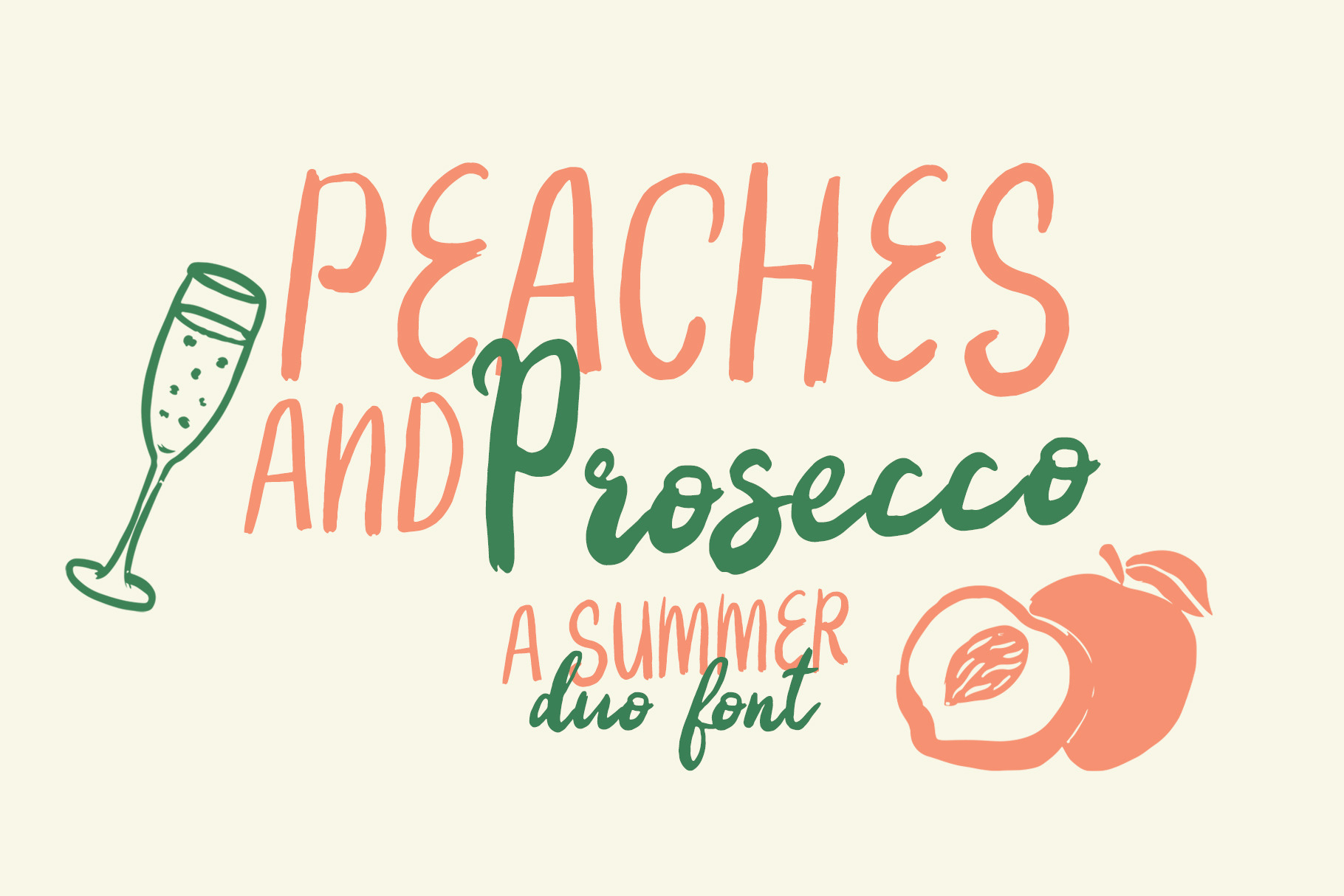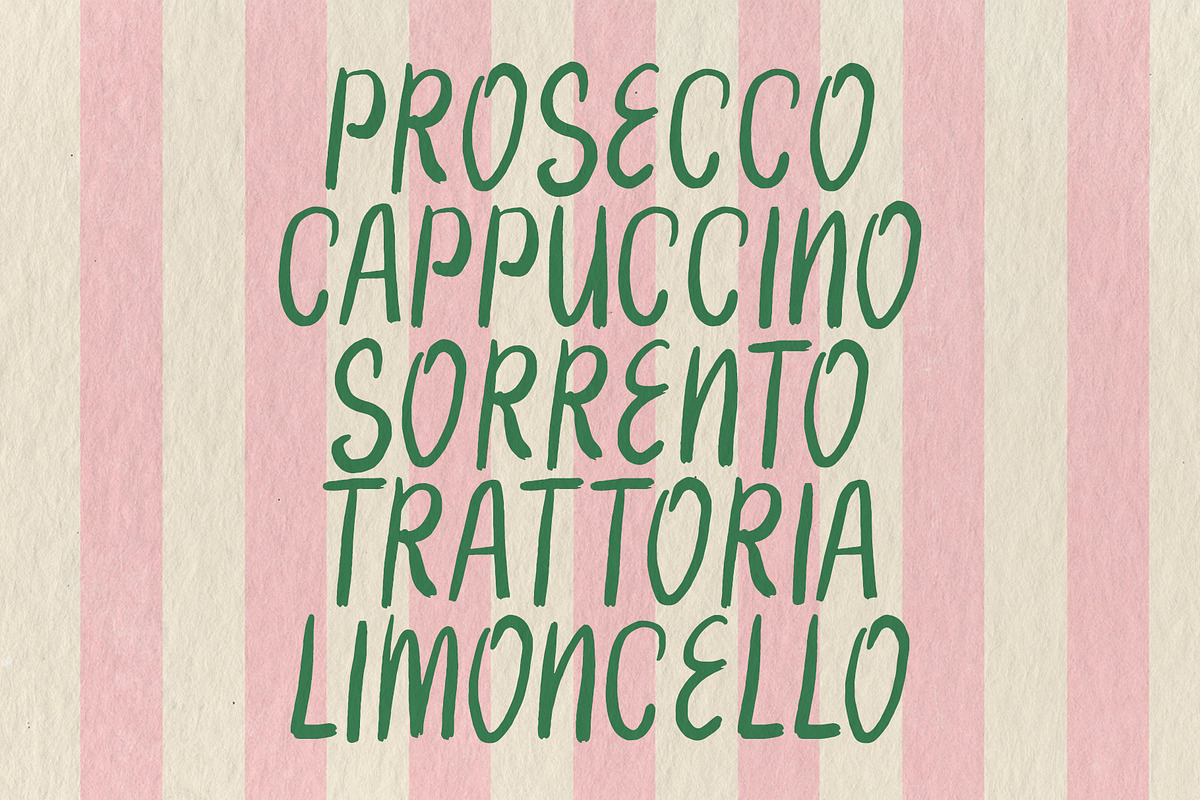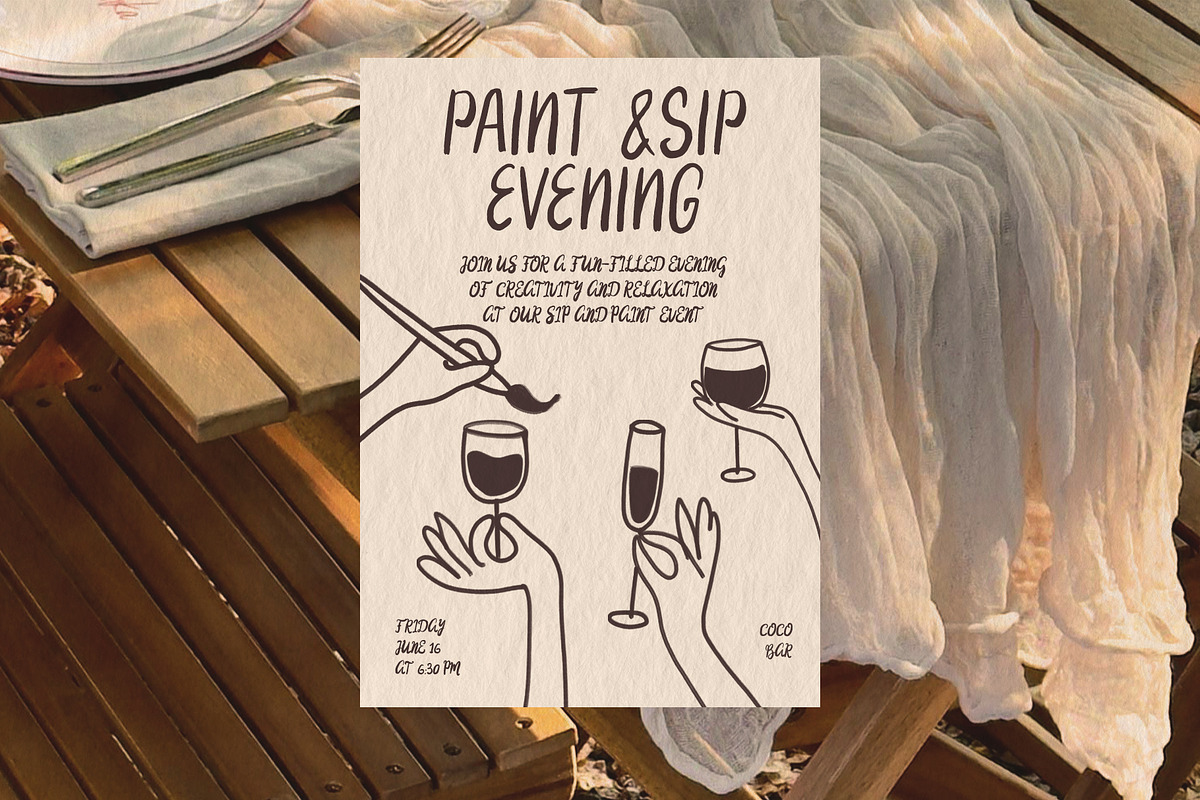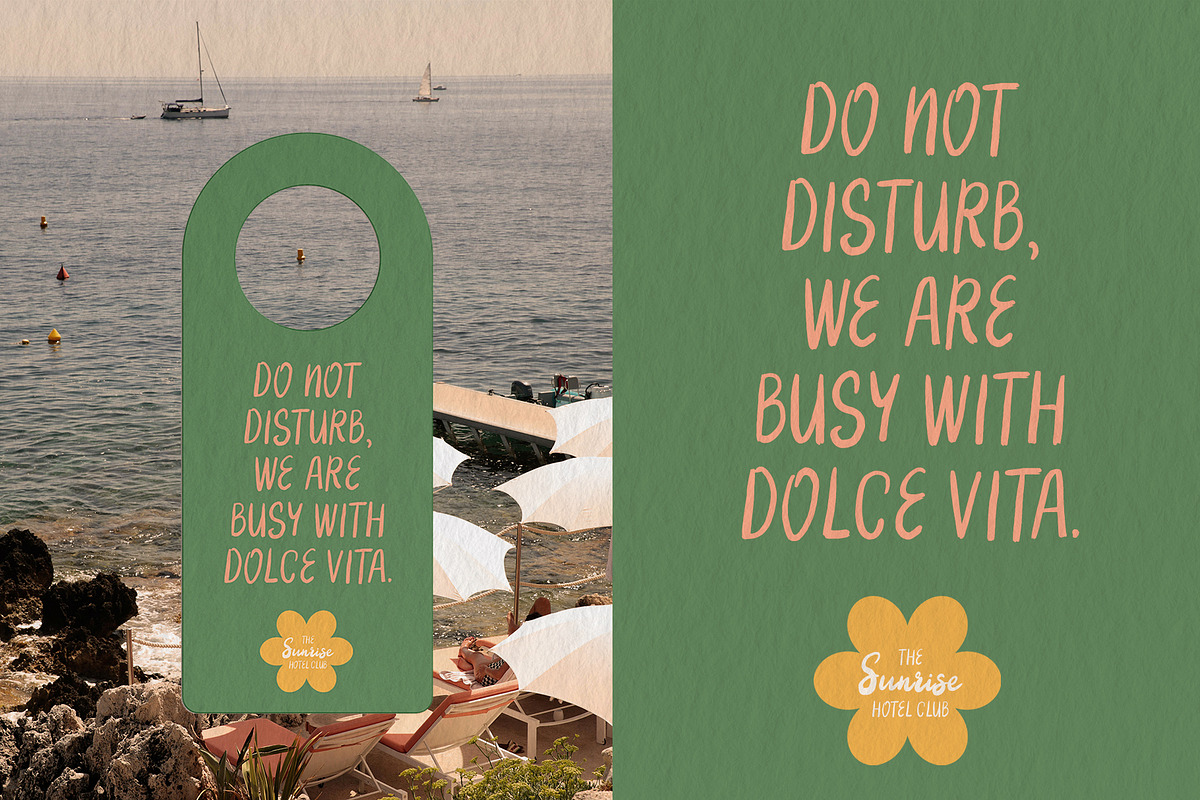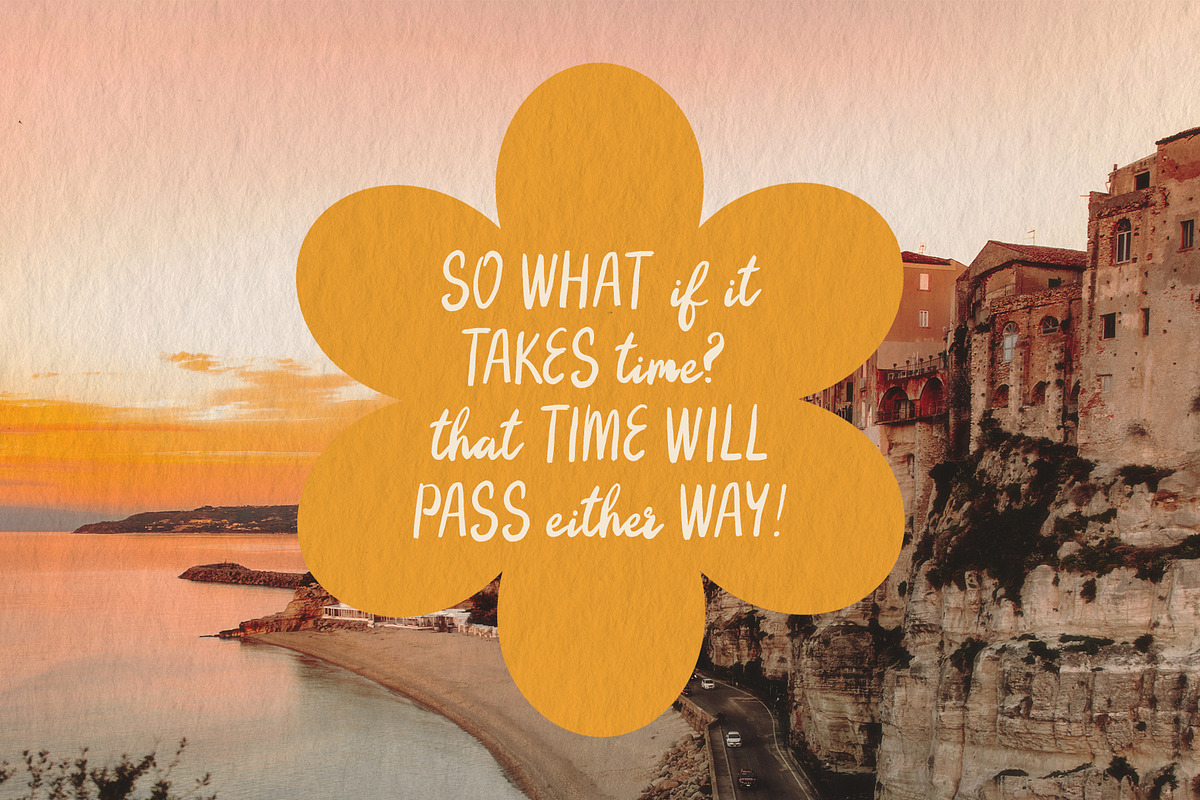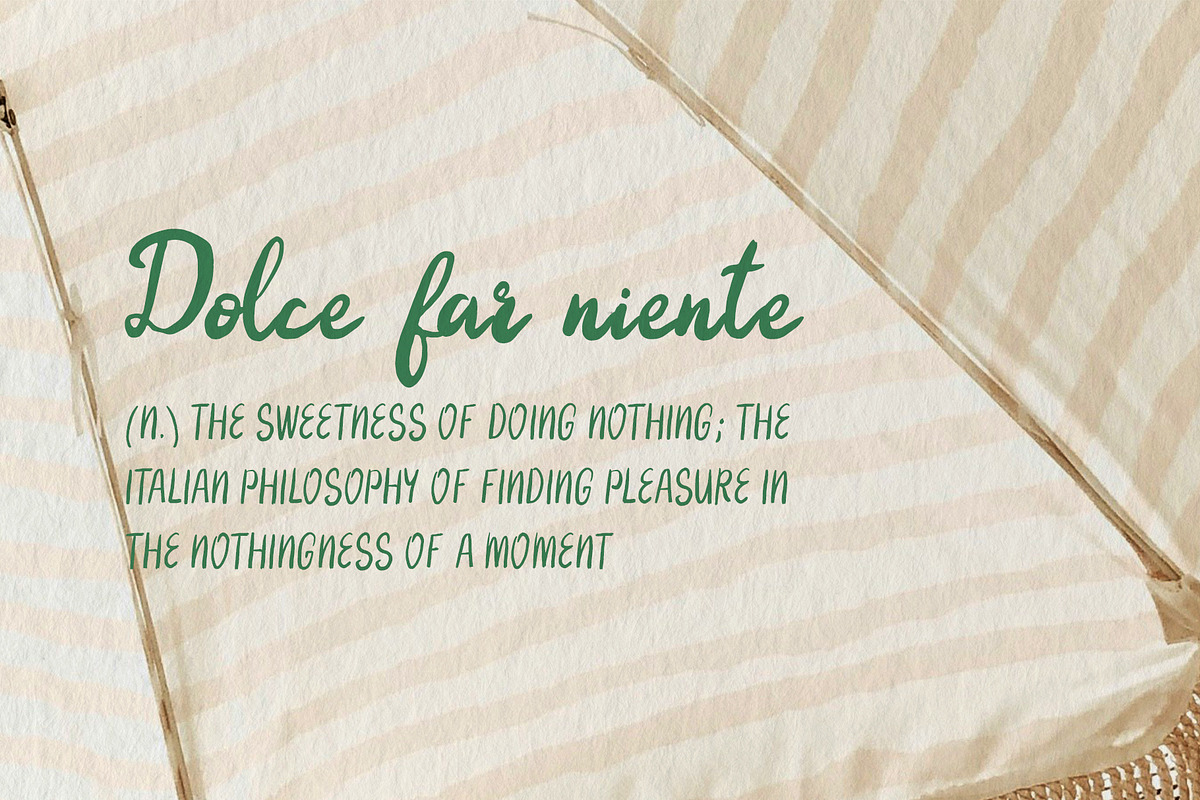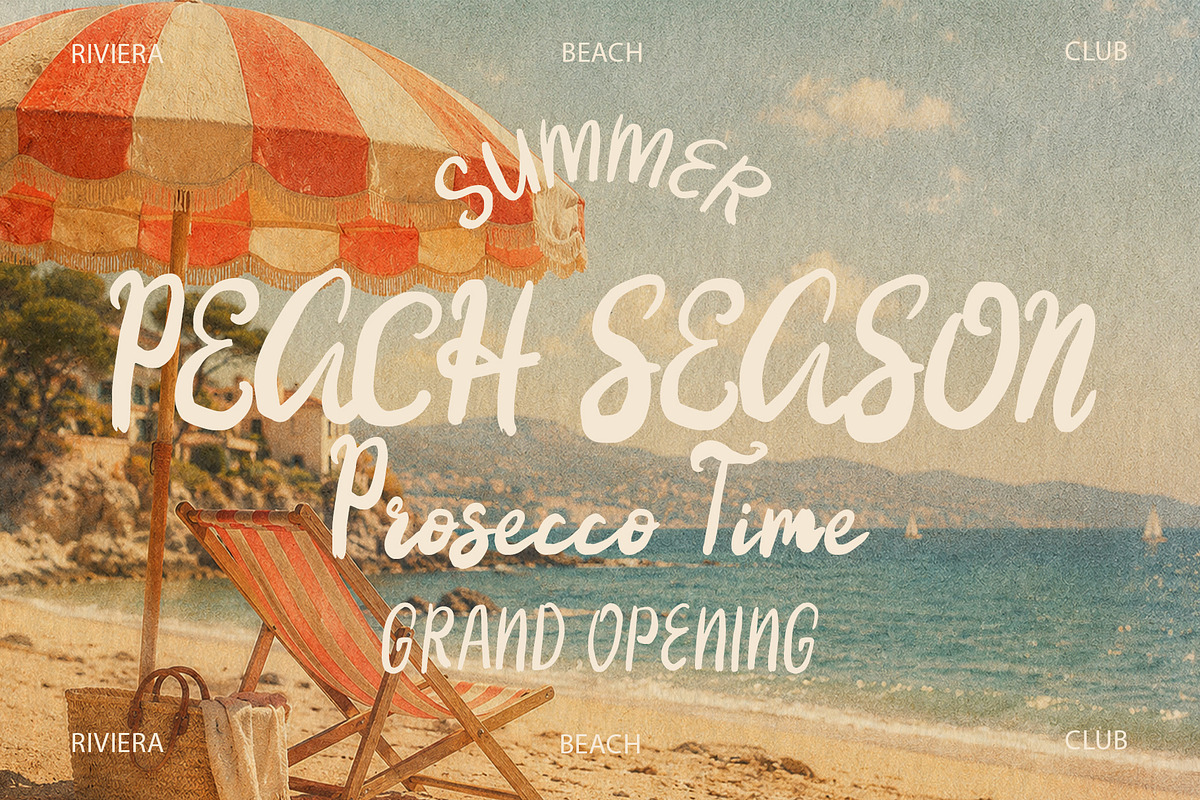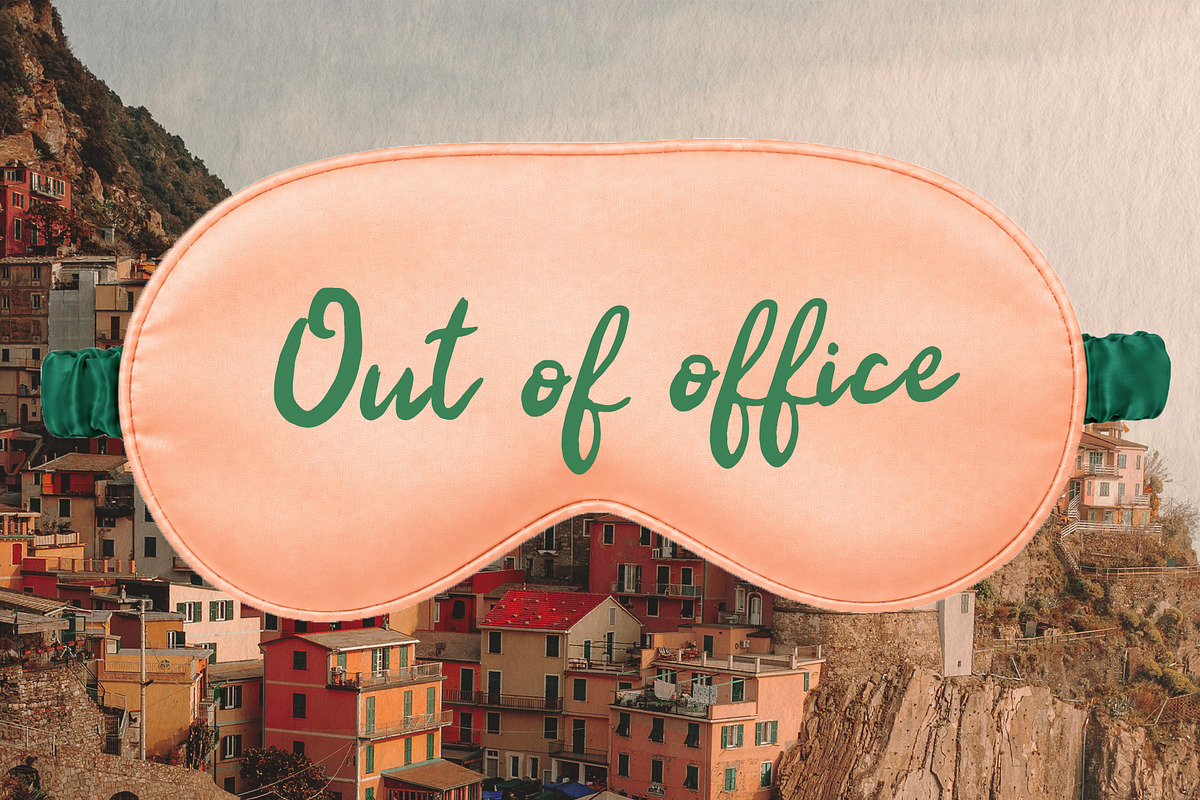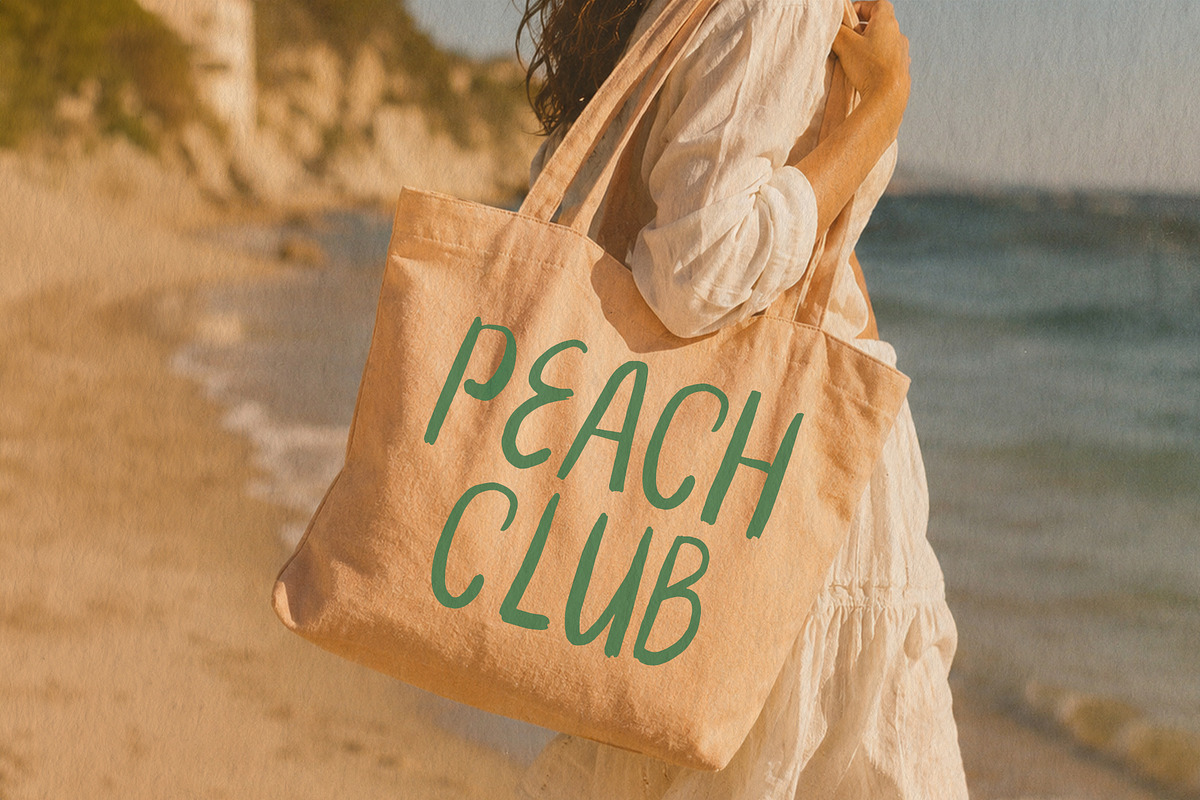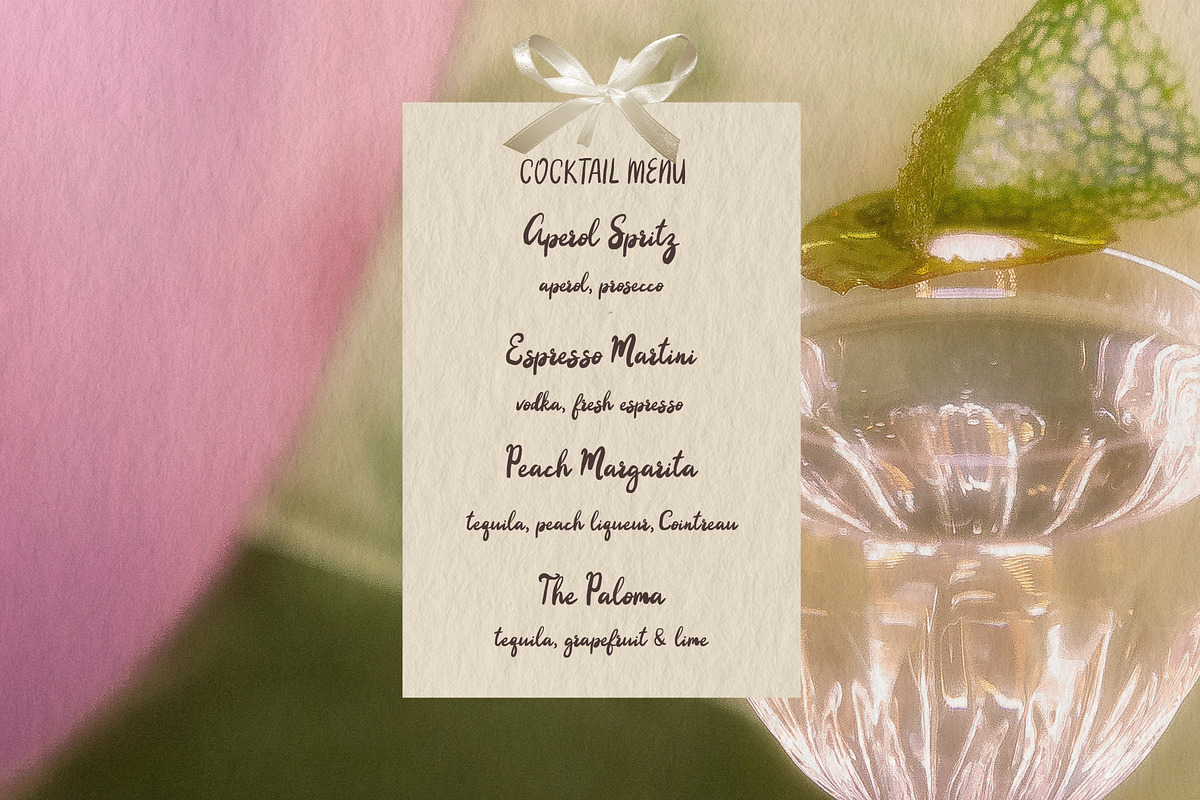
Peaches & Prosecco a Summer Duo Font
Peaches & Prosecco is a playful summer duo font inspired by sunny afternoons, sparkling drinks, juicy peaches, and relaxed vacation moods. This font pairing combines a casual hand-drawn display style with a soft handwritten script, making it perfect for cheerful, feminine, and lifestyle designs.
Use it for summer branding, cocktail menus, café graphics, packaging, social media posts, wedding stationery, invitations, quote designs, posters, stickers, and product labels. The font has a warm, imperfect handmade feel that brings charm, personality, and a little bit of dolce far niente to your projects.
Perfect for brands and designs that need a fresh, romantic, playful, and sun-kissed look.